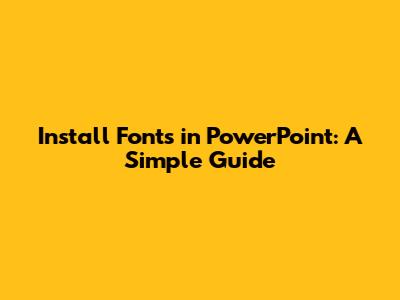
- Add personality: Choose fonts that reflect your brand or the theme of your presentation.
- Improve readability: Some fonts are simply easier to read on screen than others.
- Stand out from the crowd: Using unique fonts can make your presentation more memorable.
- Create a professional look: The right font can elevate the overall design of your slides.
- Font Looks Different in PowerPoint: Sometimes, a font might look slightly different in PowerPoint than it does in other applications. This could be due to font rendering differences between applications. Try adjusting the font size or using a different rendering mode in PowerPoint's options.
- Consider Your Audience: Who are you presenting to? A formal audience might require a more conservative font choice, while a creative audience might appreciate something more unique and playful.
- Think About Your Message: What message are you trying to convey? Choose fonts that align with the tone and style of your message. A serious message might call for a clean, professional font, while a lighthearted message might be better suited to a more casual font.